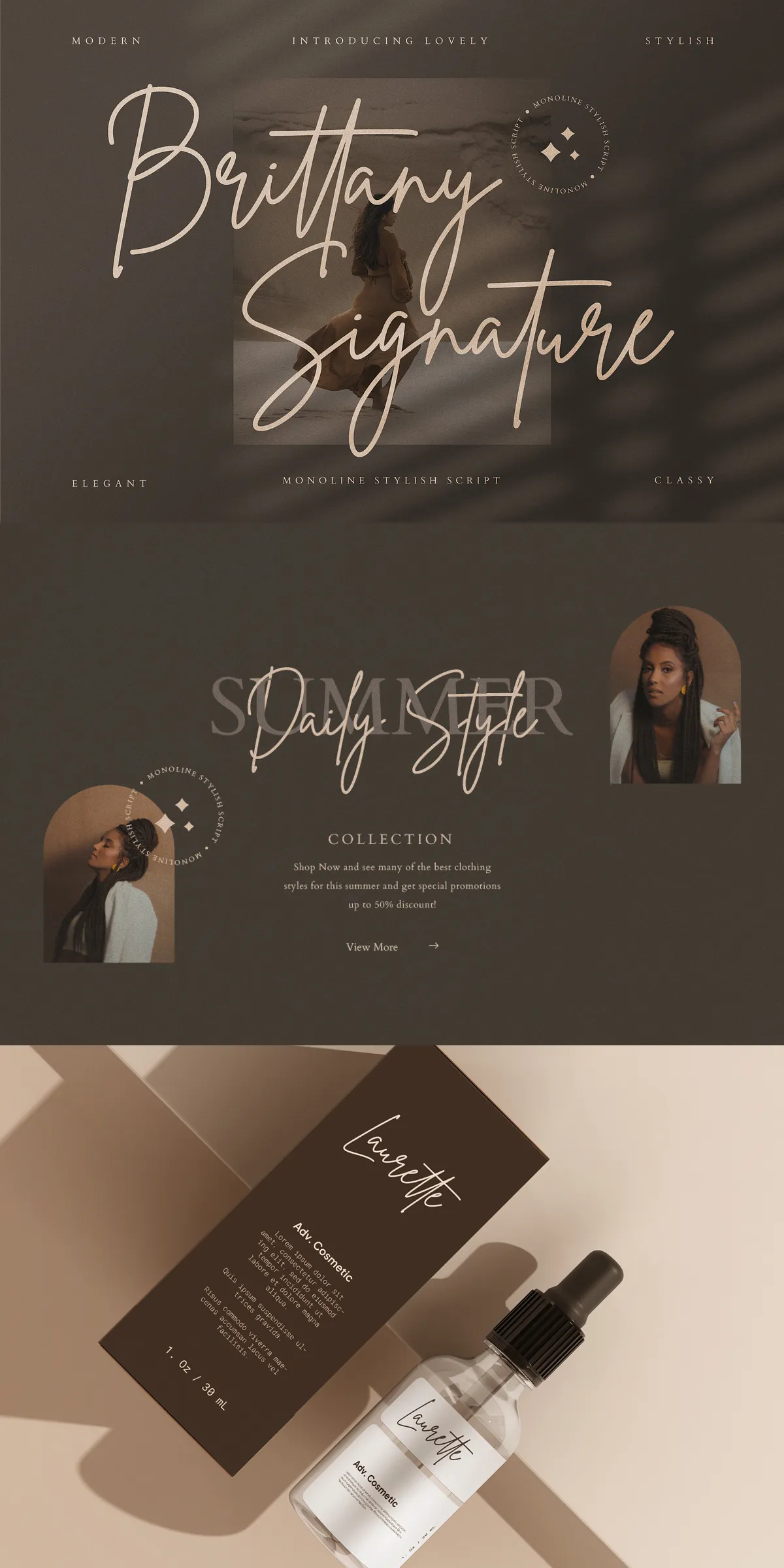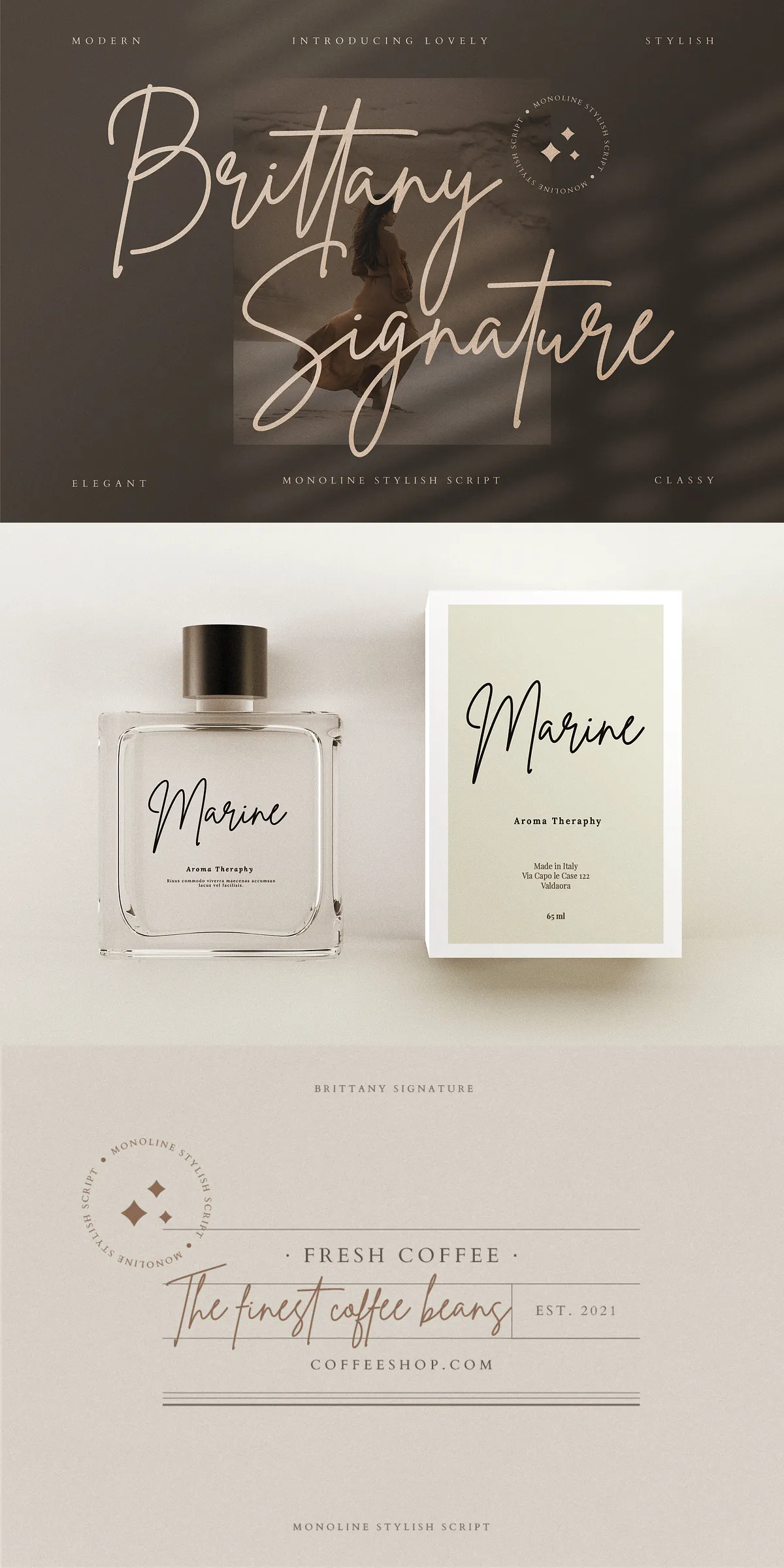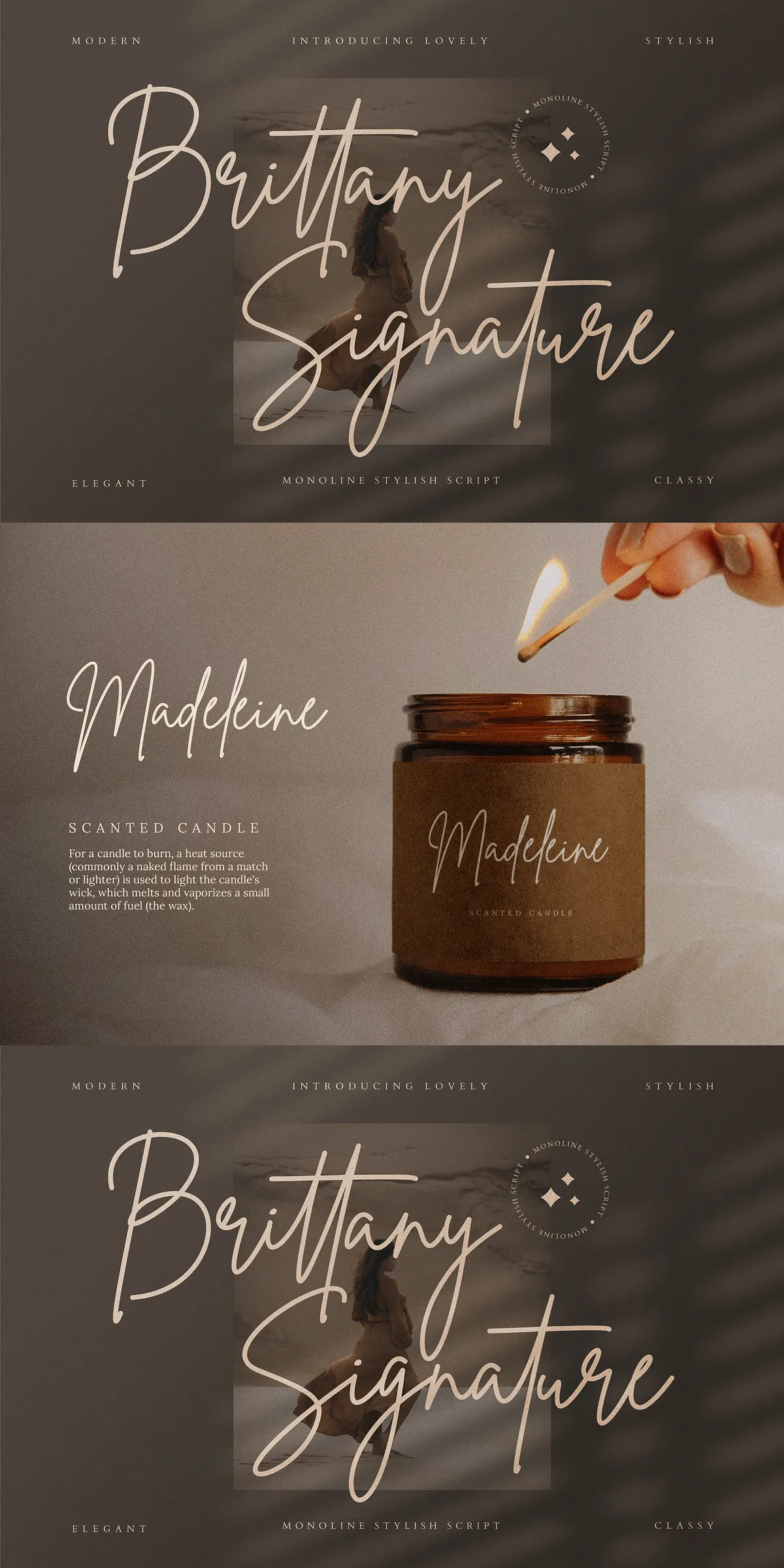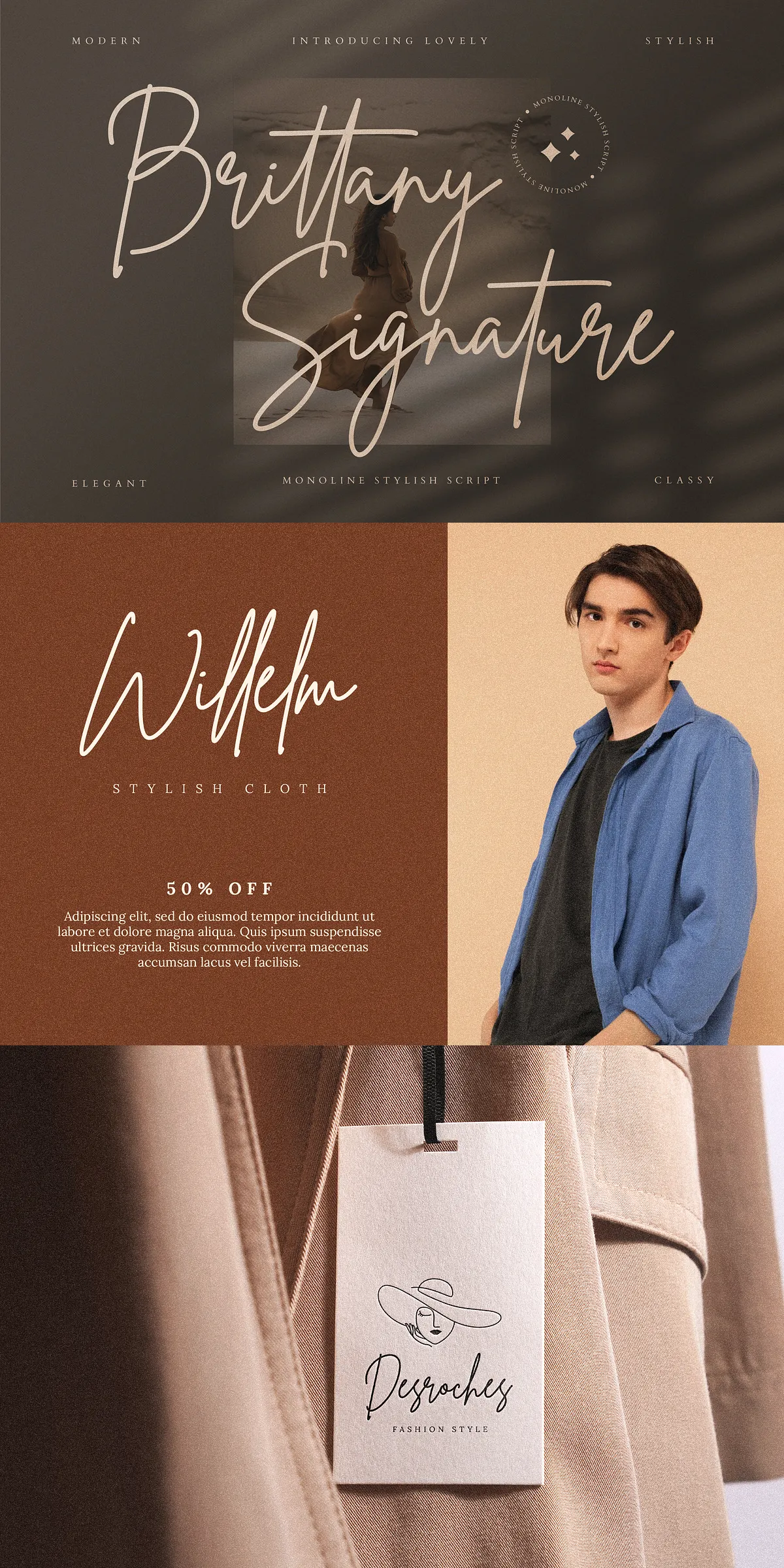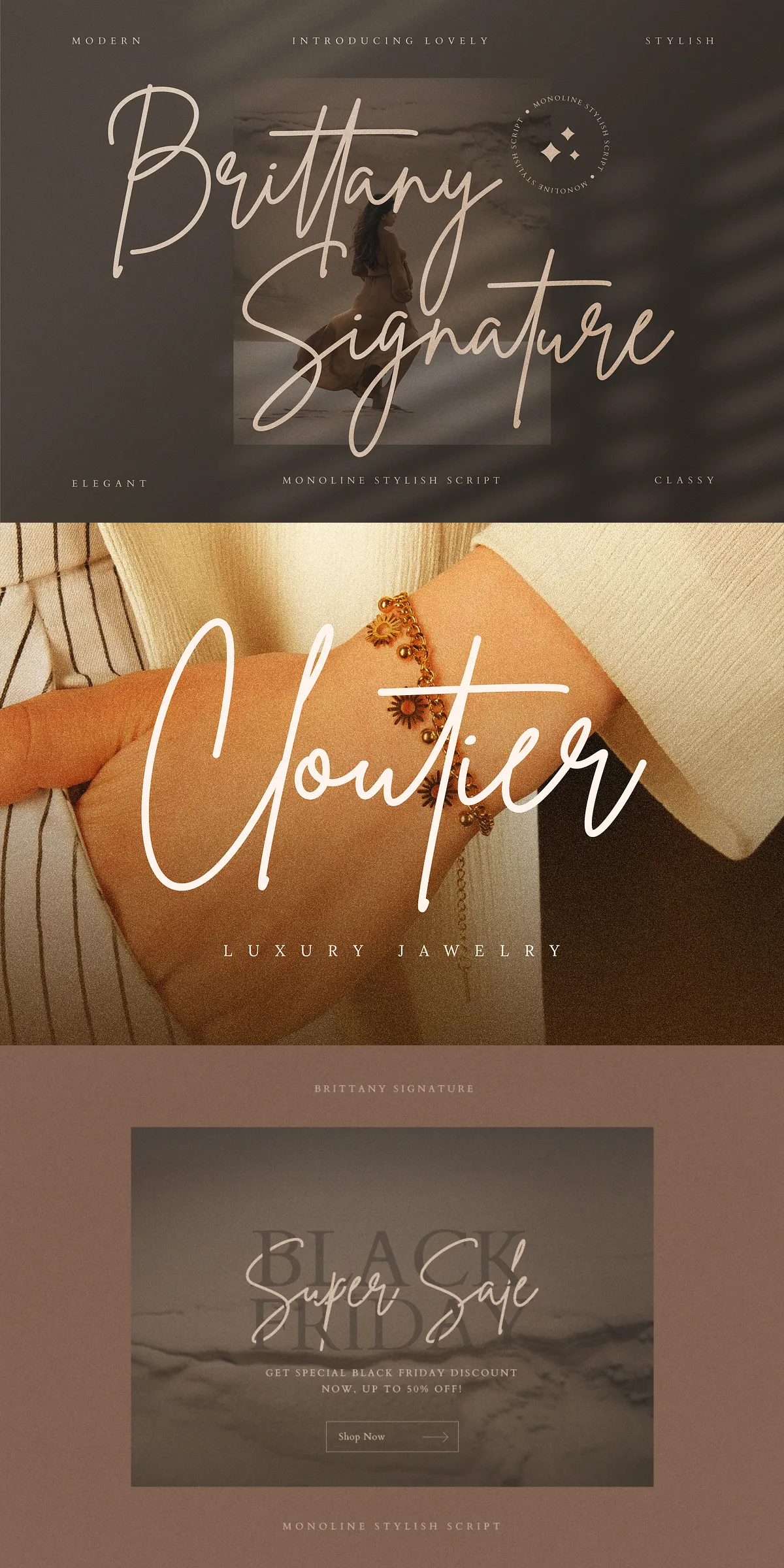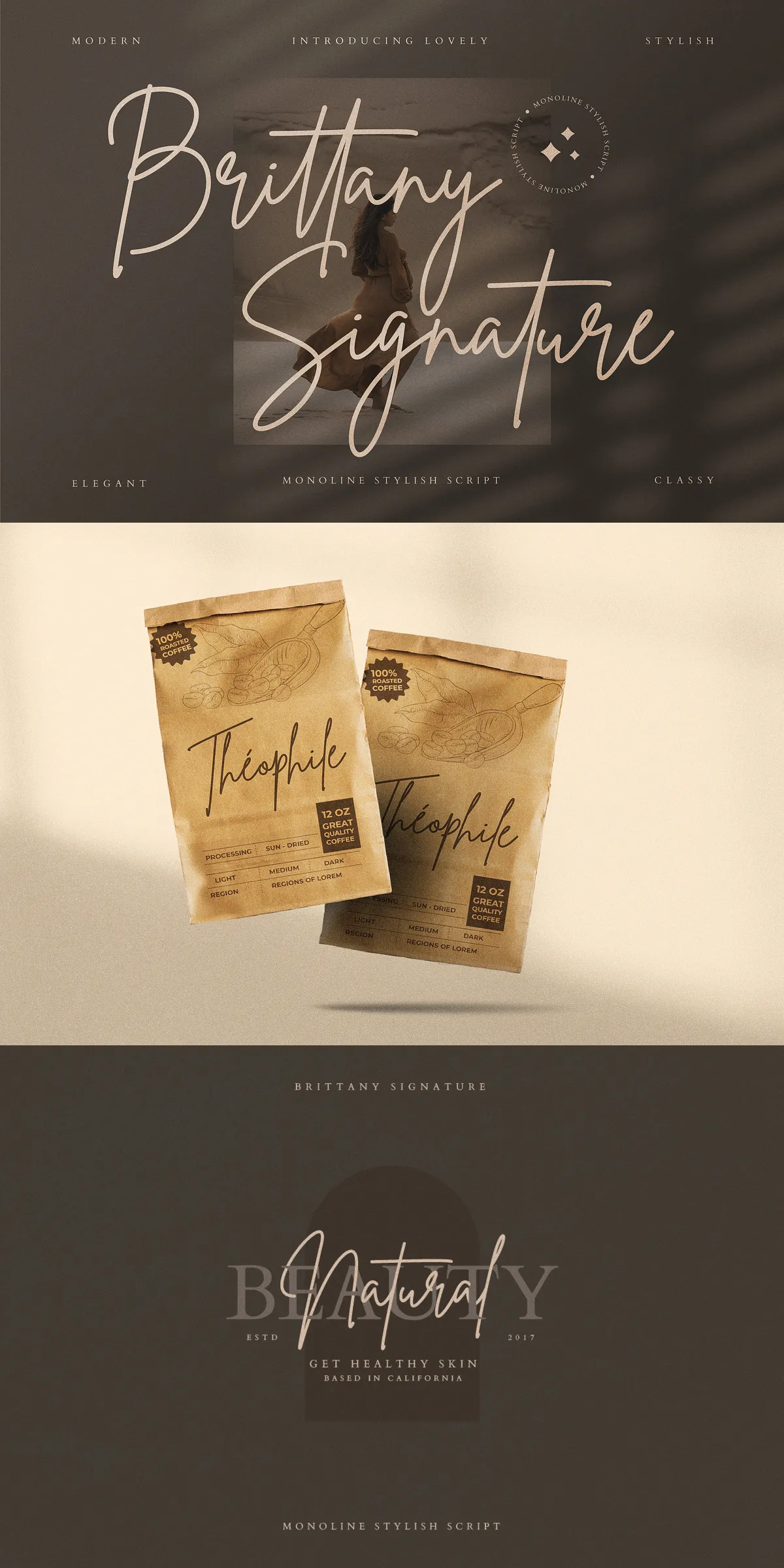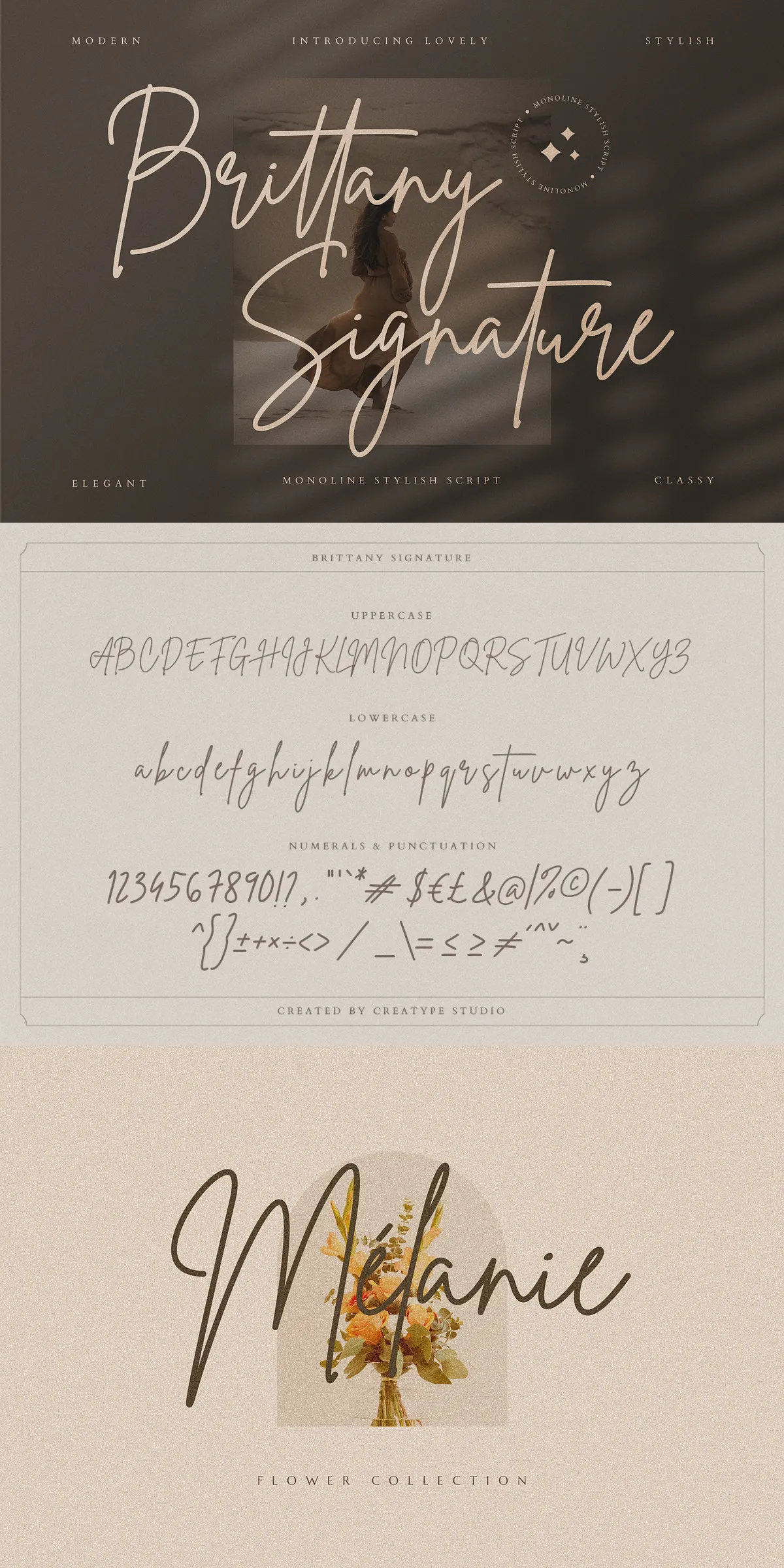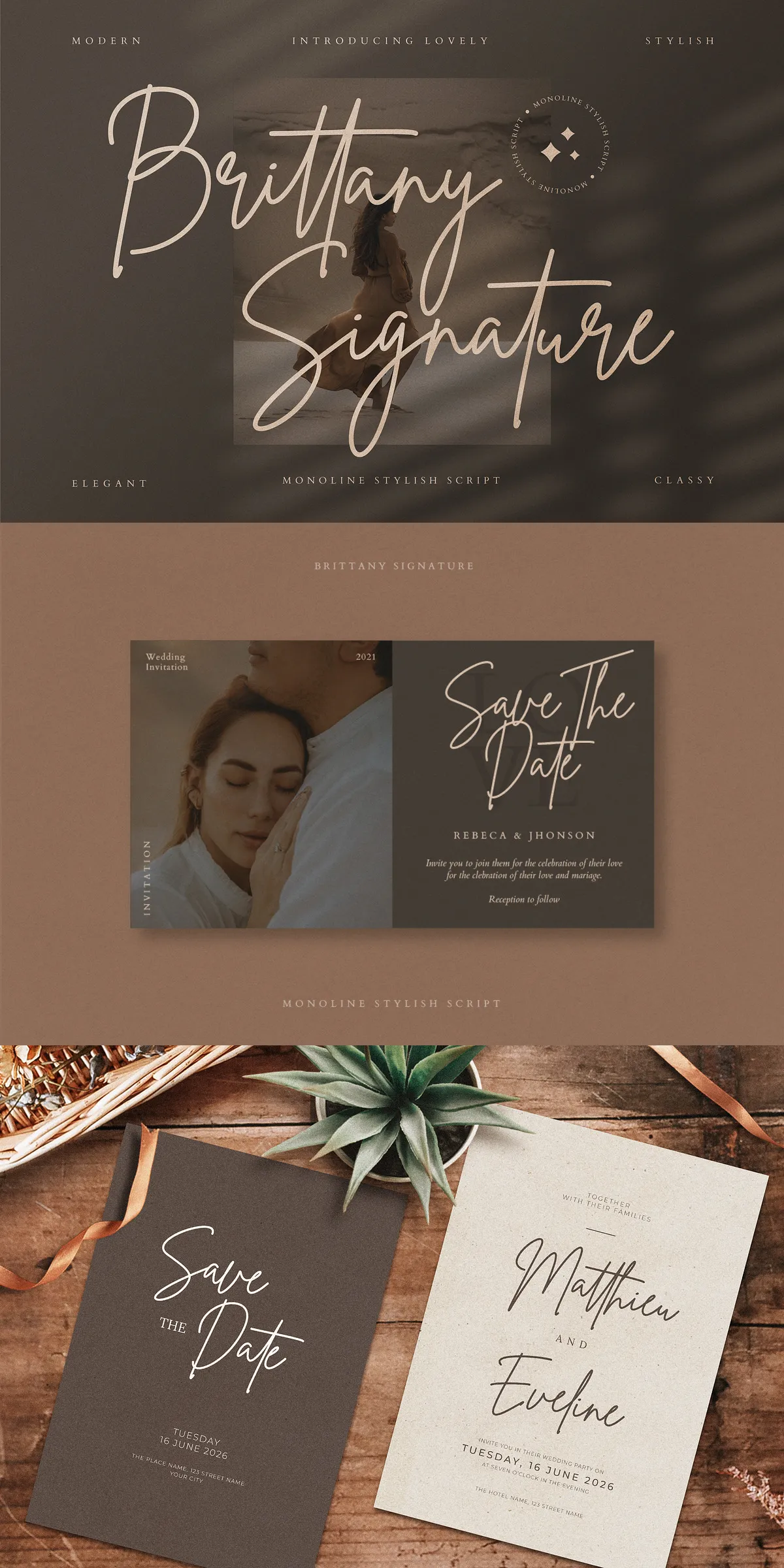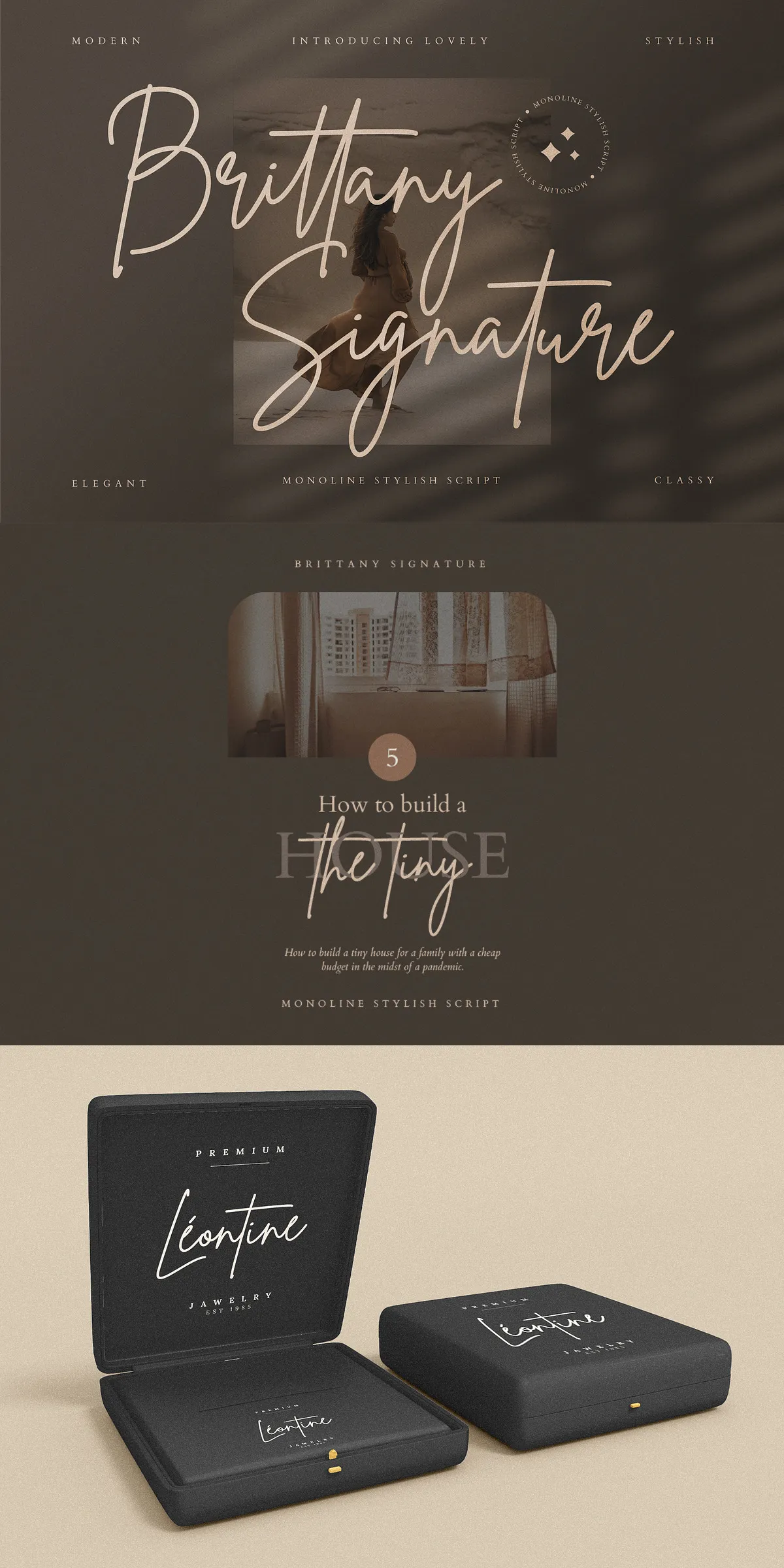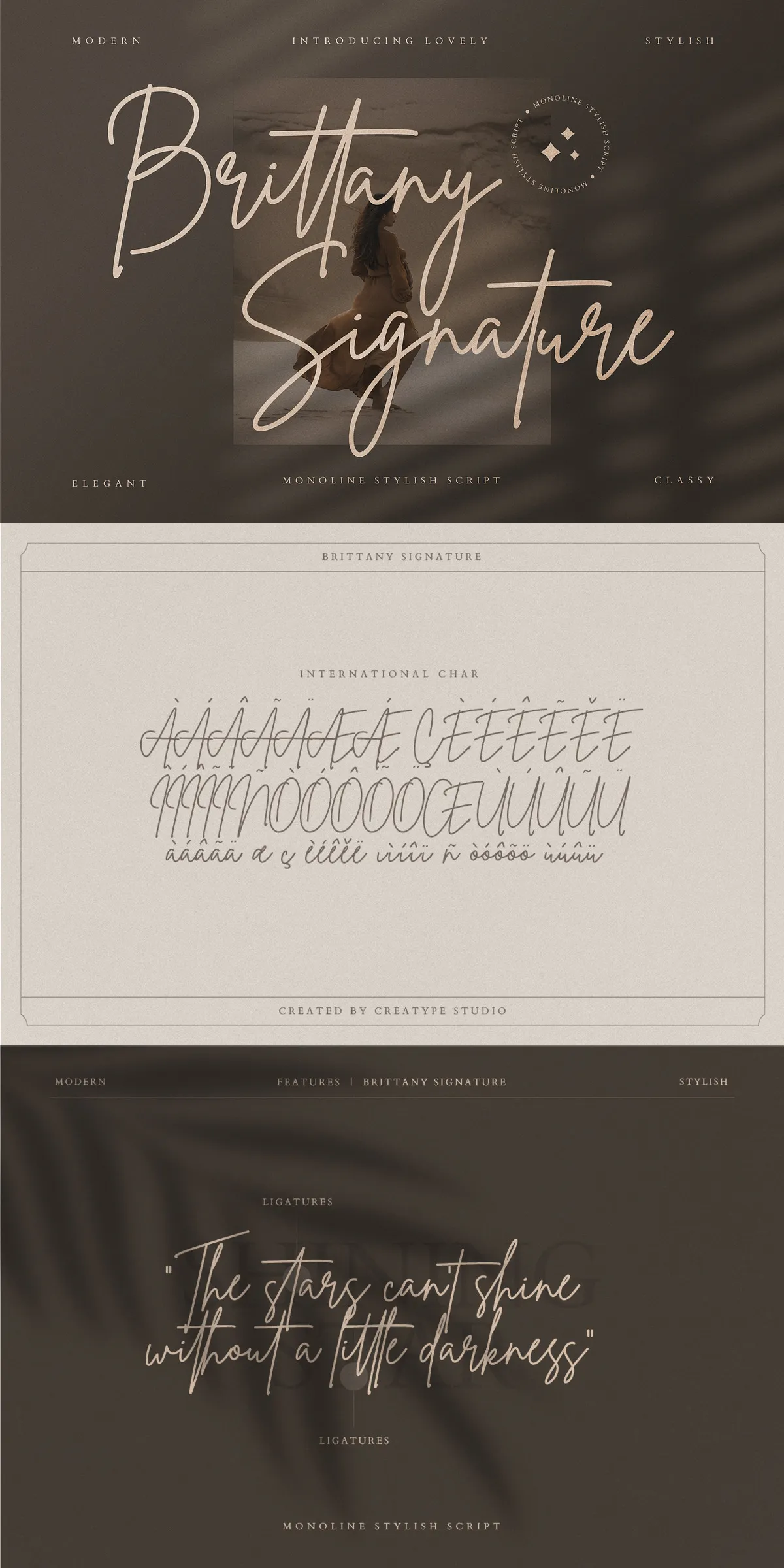
Meet **Brittany Signature Script**, a bold yet refined signature-style script font that blends modern sophistication with timeless elegance. Designed for creatives who value authenticity, this font captures the organic flow of ink on paper — complete with unique curves, graceful ascenders, and a naturally expressive rhythm that feels deeply personal. Whether you’re crafting high-end wedding invitations, building a brand identity, designing product labels, or creating dynamic social media content, Brittany Signature Script turns every project into a statement of refined taste.
Signature-Style Aesthetic with Artistic Uniqueness
Unlike generic script fonts, Brittany Signature Script stands out from the crowd with its distinct character and intentional design. Each letterform is carefully crafted to mimic the subtle variations of real handwriting — no two characters are exactly alike, ensuring visual richness and preventing monotony in long text blocks. Its dynamic inky flow adds movement and personality, making your text feel alive and expressive, never stiff or artificial.
Comprehensive Feature Set for Real-World Design Needs
This font goes beyond style — it’s built for function. Here’s what you get:
- Standard & multilingual glyphs: Perfect for global outreach with full support for Afrikaans, Danish, Dutch, French, German, Indonesian, Irish, Italian, Norwegian, Portuguese, Scottish, Spanish, Swedish, and Swiss variants.
- Ligatures included: Seamless connections between letters for a natural, fluid look — ideal for headings, quotes, and branding elements.
- PUA Encoded Characters: Access all alternate glyphs instantly, with no need for special software or keyboard layouts.
Perfect For: Where Brittany Signature Script Shines
Wedding & Event Branding That Feels Personal
Create invitations, save-the-date cards, seating charts, thank-you notes, and program booklets that exude warmth and elegance. The flowing script adds emotional resonance, making guests feel part of a curated, intimate experience — not just an event.
Brand Identity with Character and Memory
Build logos, business cards, packaging, and packaging labels that stand out. Brittany Signature Script adds a human touch to corporate branding — ideal for boutiques, lifestyle brands, artisan crafts, wedding planners, and luxury product lines.
Social Media & Digital Marketing with Personality
Design eye-catching Instagram posts, Facebook graphics, Pinterest pins, YouTube thumbnails, and ads that stop the scroll. The expressive script draws attention, communicates emotion, and boosts brand recall in competitive online spaces.
Photography, Watermarks & Product Labels
Use as a watermark on photos to add a professional, artistic touch. Apply to product labels, packaging, and branding materials for a handmade, curated feel that elevates perceived value.